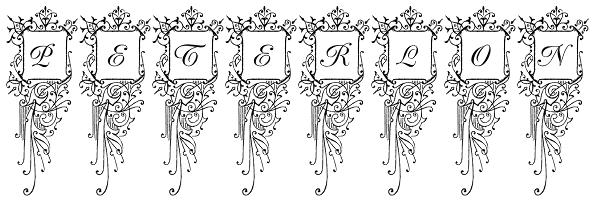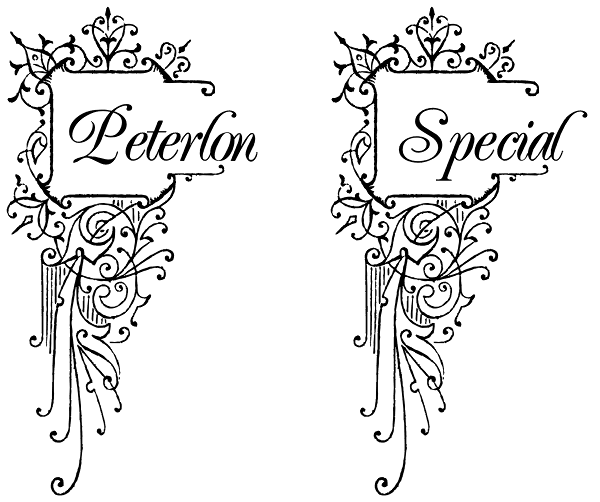
Peterlon
Peterlon is an intricate and highly ornamental set of decorative initials, mixing Victorian style in the decorative boxes with classic chancery capitals.
Peterlon
Peterlon Font
Peterlon Special
Peterlon Special Font